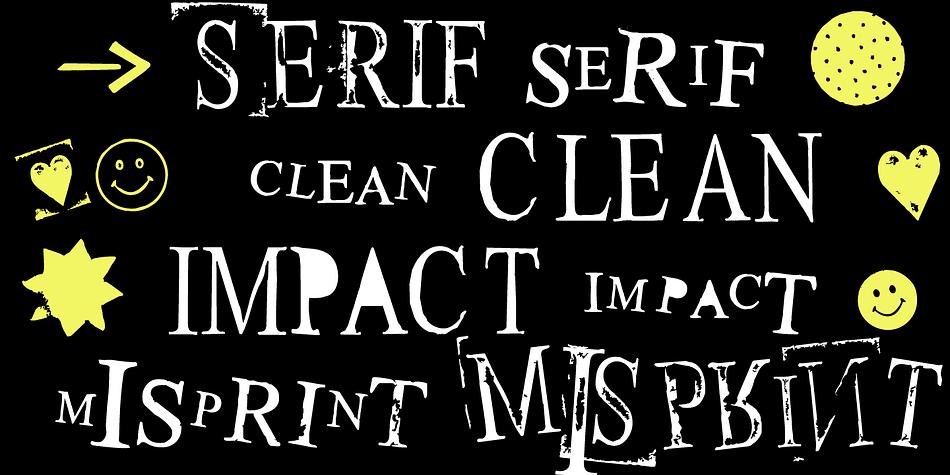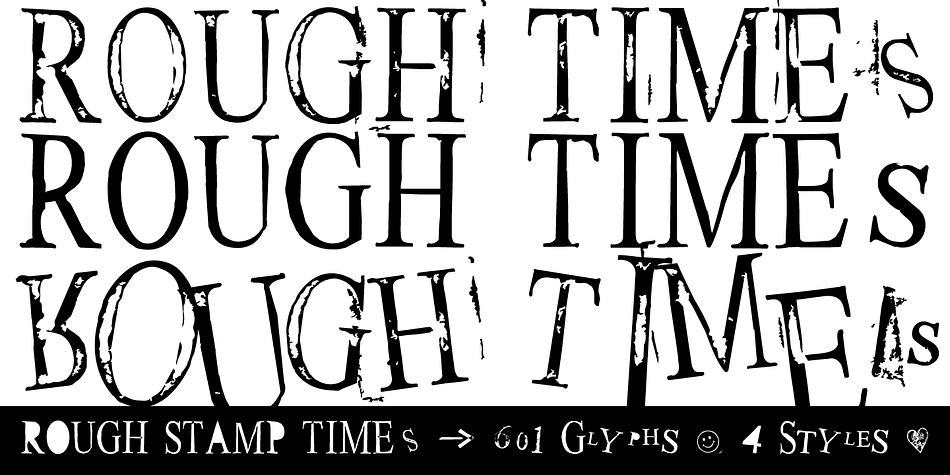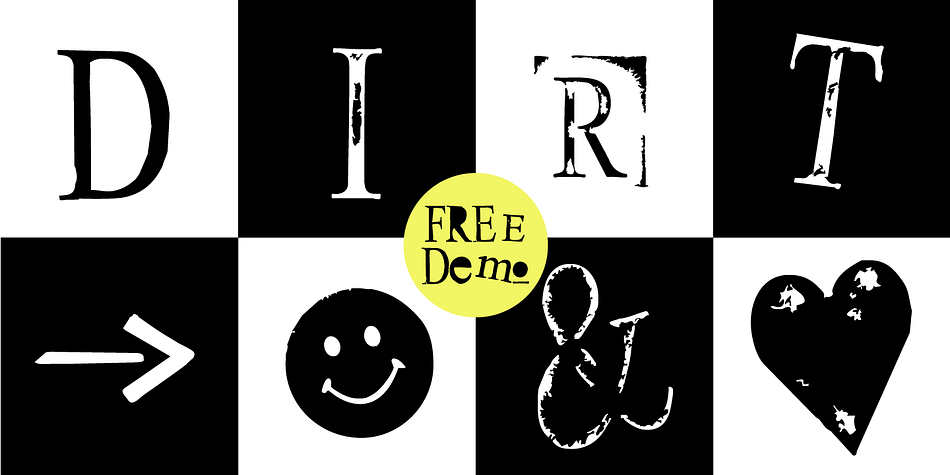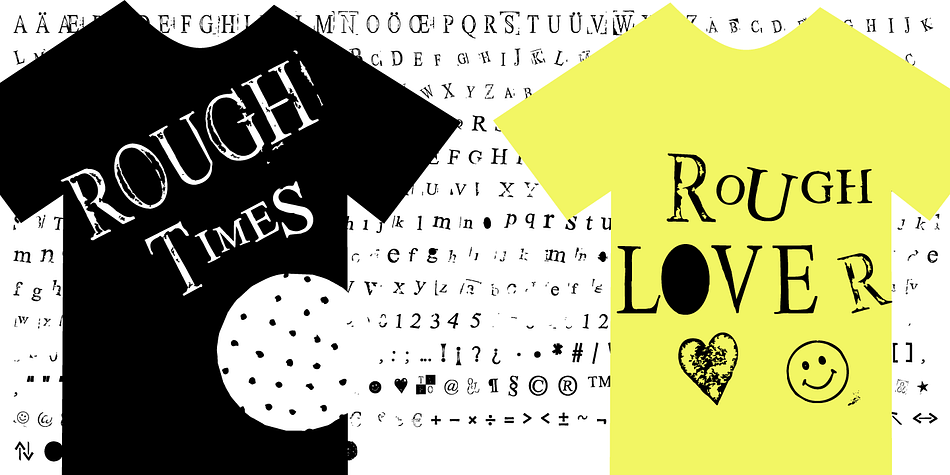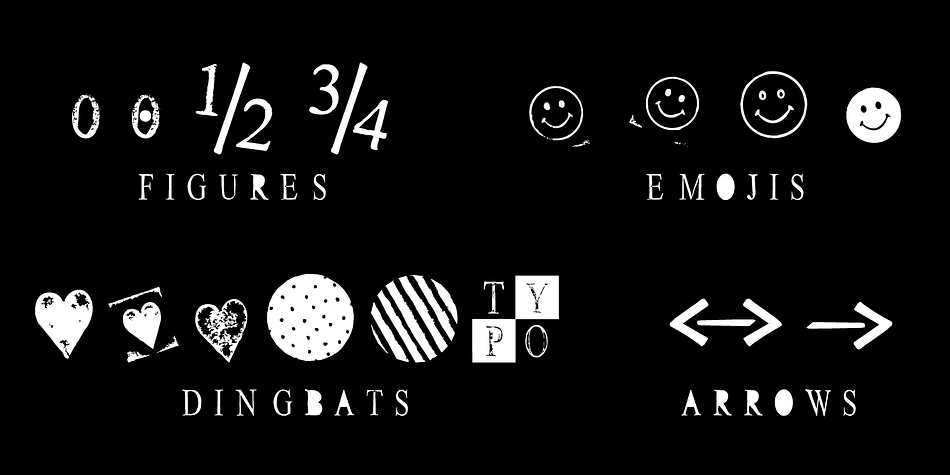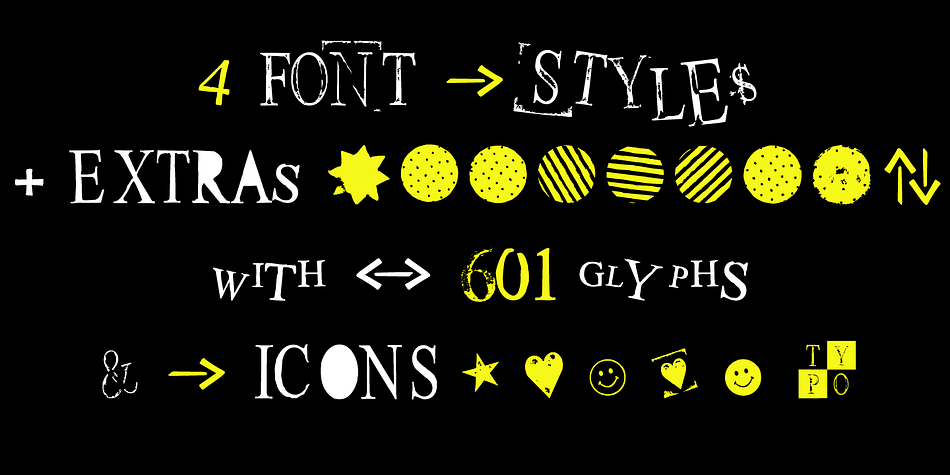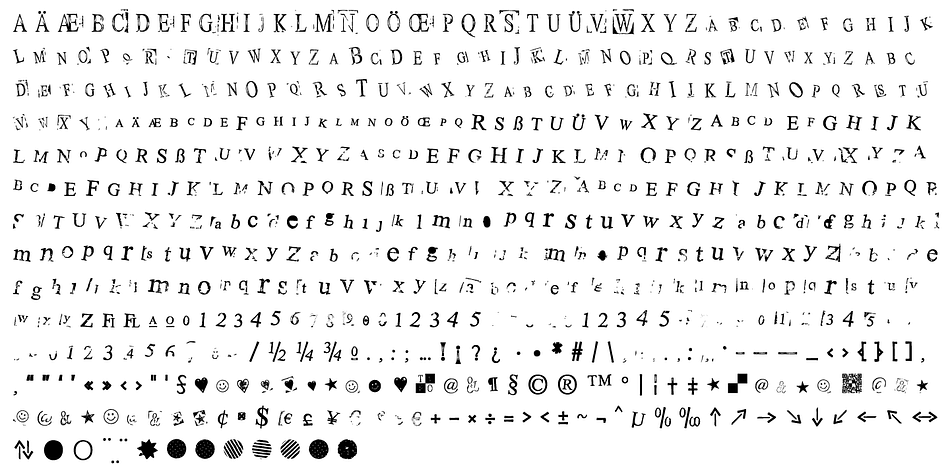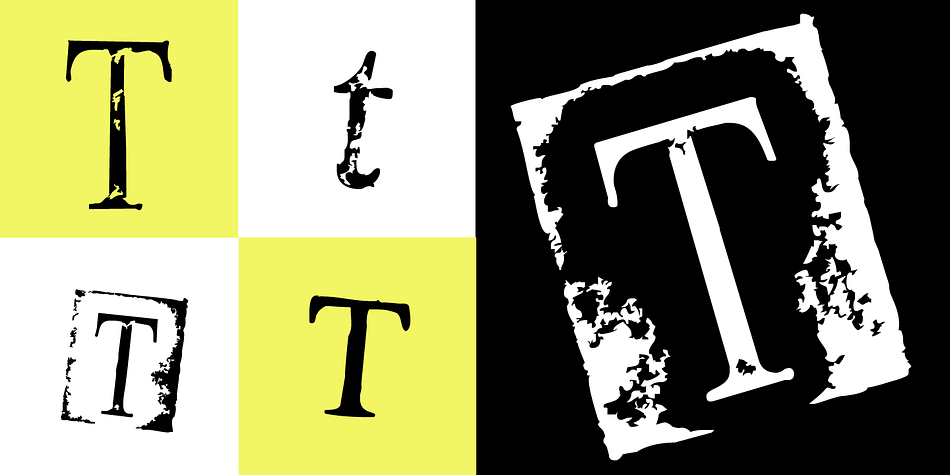
Designed by Manuel Viergutz, Rough Stamp Times is a grunge and novelty font family. This typeface has eight styles and was published by Typo Graphic Design.
The typeface Rough Stamp Times is designed from 2016–2022 for the font foundry Typo Graphic Design by Manuel Viergutz.
The display font based on the original rubber stamps from flea market. The font started from 50+ stamps (analog) and was finally digitalize and extended to 600+ glyphs (digital).
4 font-styles (Rough, Clean, Misprint, Impact) with 601 glyphs incl. decorative extras like icons, arrows, dingbats, emojis, symbols, geometric shapes (type the word #LOVE for ❤ or #SMILE for ☺ as OpenType-Feature dlig) and stylistic alternates (9 stylistic sets).
For use in logos, magazines, posters, advertisement plus as webfont for decorative headlines. The font works best for display size.
■ Glyph Set: 601 glyphs incl. extras like icons (decorative extras like arrows, dingbats, emojis, symbols)